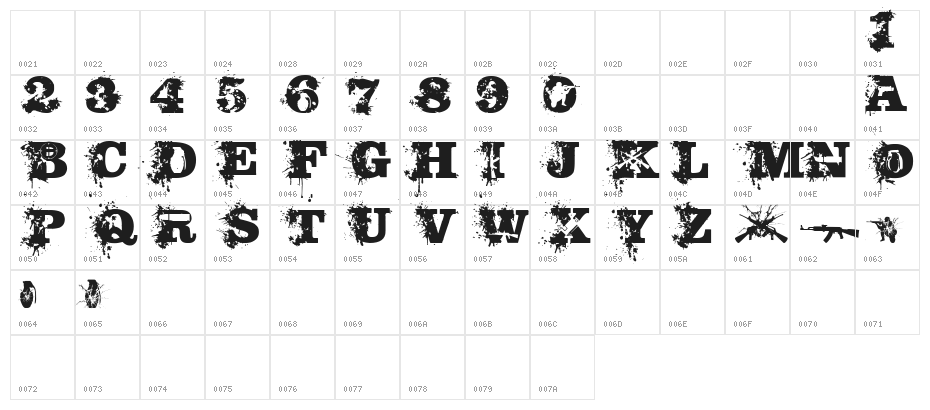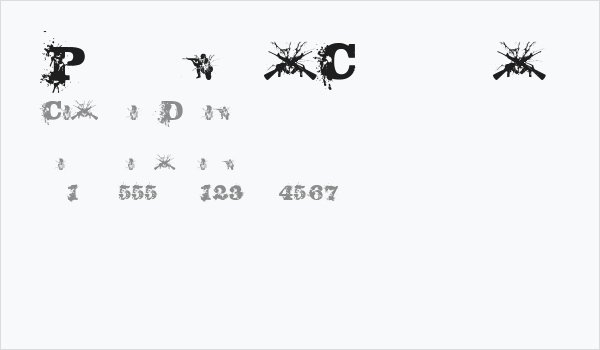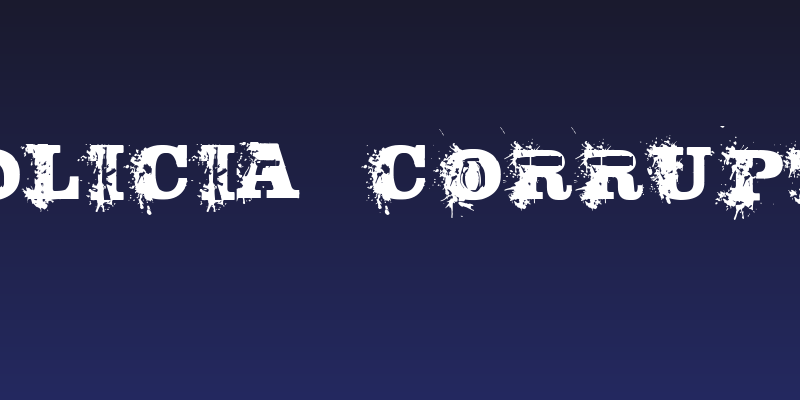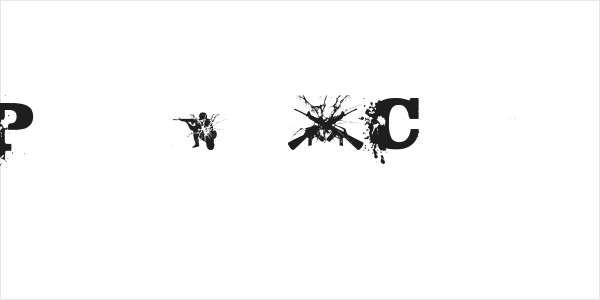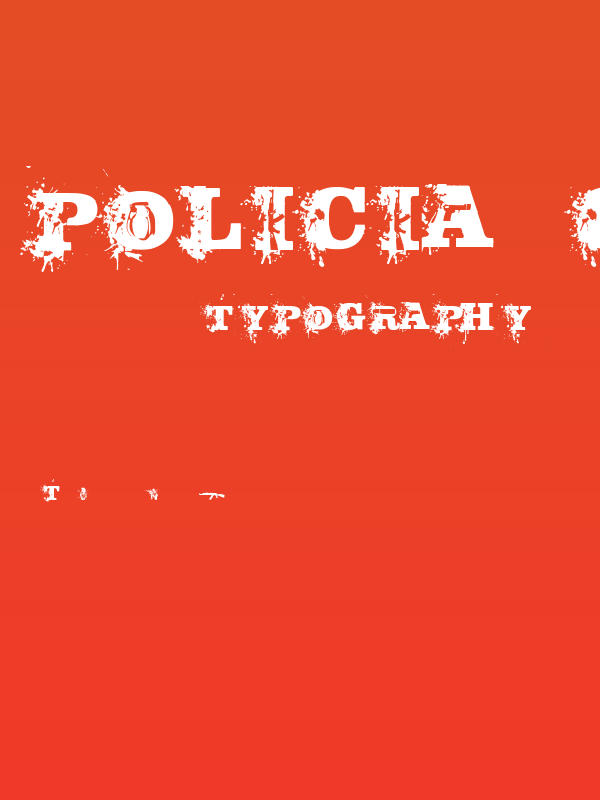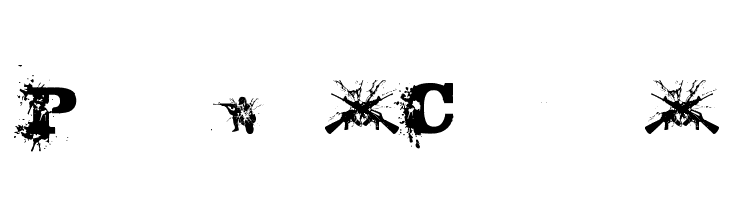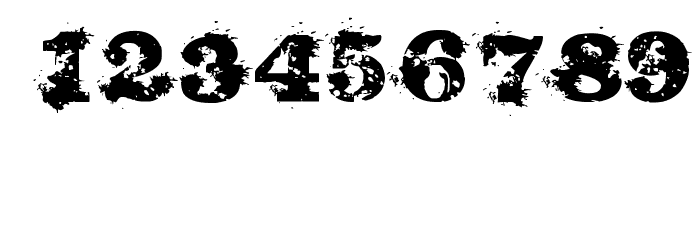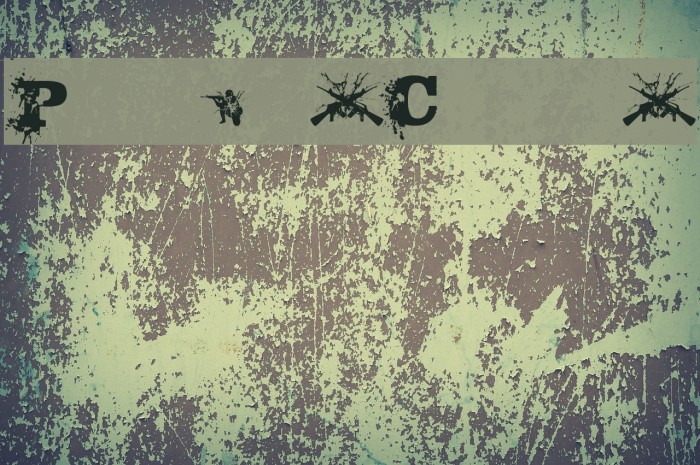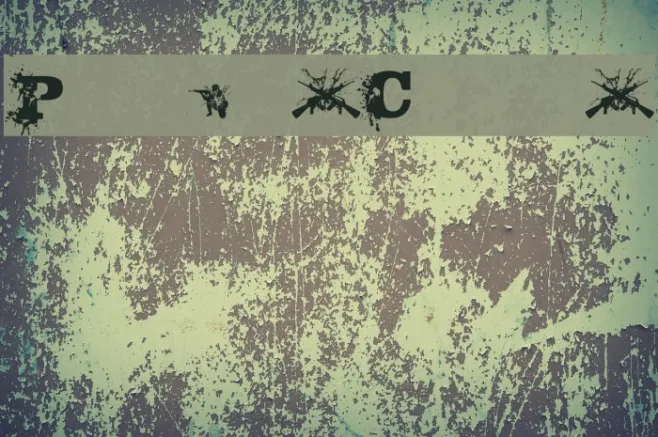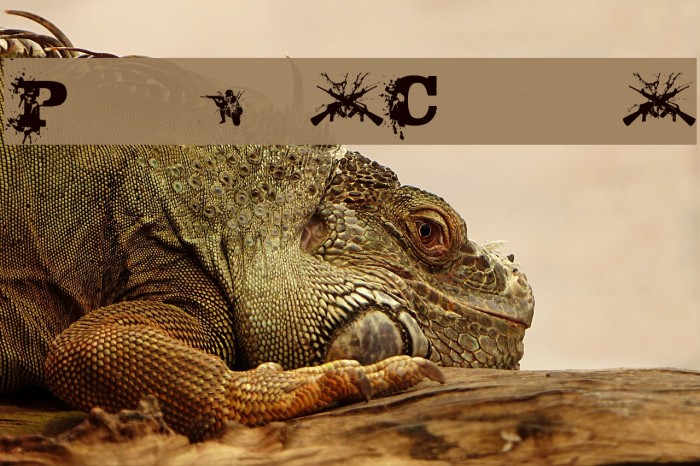
Policia Corrupta Font
Policia Corrupta Description
This font features a bold, distressed style with a grunge aesthetic. Each character appears as if it has been splattered with ink or paint, giving it a rugged and edgy appearance. The uppercase letters are prominent and commanding, while the numbers and special characters maintain the same distressed look. The overall design is highly decorative, making it suitable for projects that require a strong visual impact. The font's unique texture and style make it stand out, ideal for creating attention-grabbing headlines or artistic designs.
| Overall Style | Grunge, Edgy, Artistic |
| Use Case | Headlines, Artistic designs, Posters |
| Proposed Projects | Ideal for album covers, posters, street art designs, and edgy branding projects. |